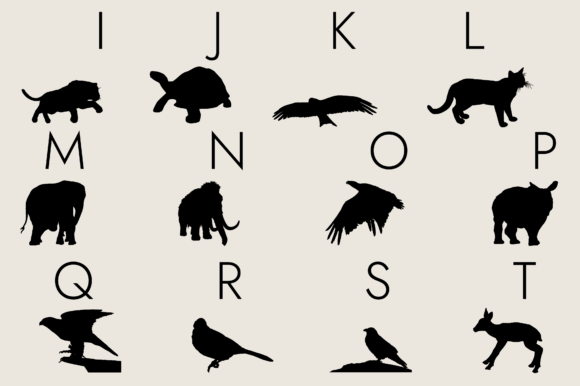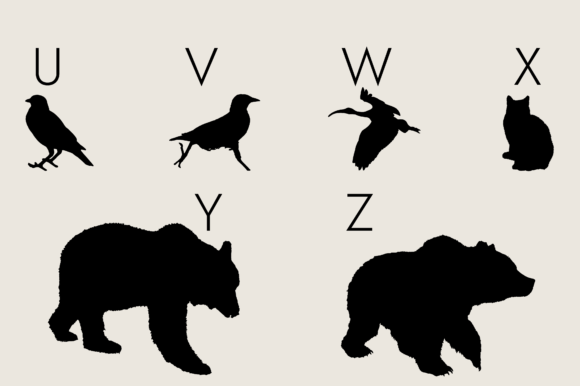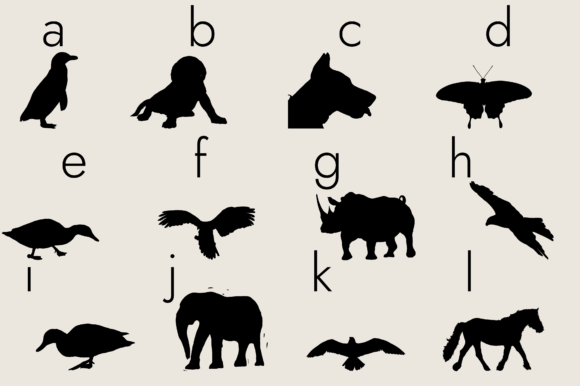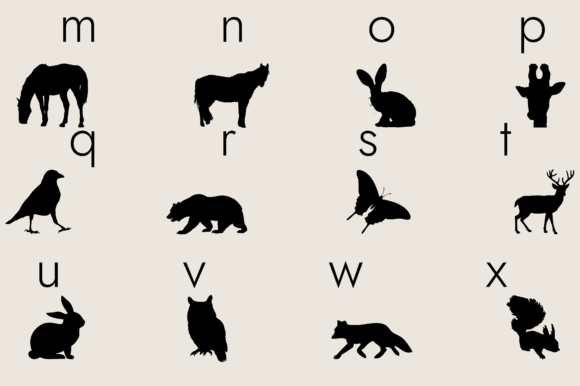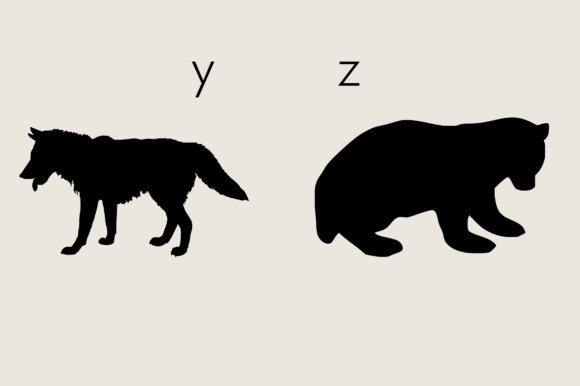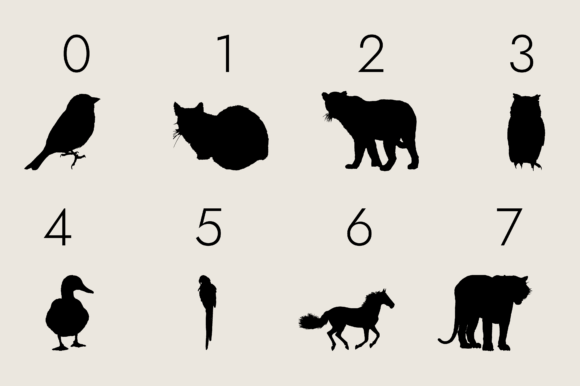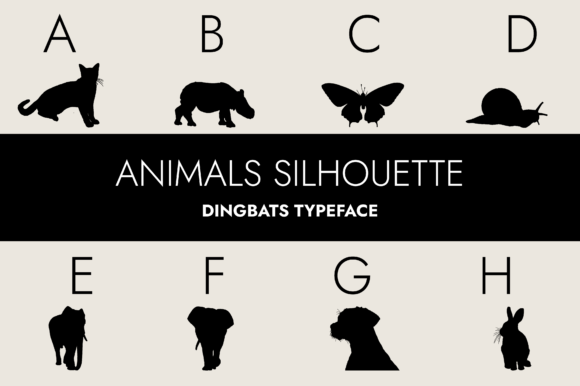
The Ultimate Design Companion: Animals Silhouette Font
I’ll never forget the time I was working on a project for a client who needed a custom illustration of various animals for a children’s book. I was struggling to find the right font to complement the artwork, and my design was starting to look dull. That’s when I stumbled upon the Animals Silhouette font, and it completely transformed my design. In this article, I’ll share my experience with this amazing dingbats font and provide a comprehensive guide on how to use it.
So, what makes Animals Silhouette font so special? 🤔
• ✨ Unique and versatile: This font offers a wide range of animal silhouettes that can be used for various design projects, from crafts to digital designs.
• 💡 Inspires creativity: The Animals Silhouette font sparks imagination and helps you create stunning designs that stand out.
While I love this font, there are a few minor quirks to be aware of:
• ⚠️ Limited text formatting: As a dingbats font, Animals Silhouette is designed primarily for use with symbols and glyphs, so text formatting options are limited.
• 🤔 Some characters may not work well at small sizes: Be sure to test the font at different sizes to ensure the characters look clear and crisp.
Animals Silhouette font comes with a range of OpenType features and glyphs that can enhance your designs. Here are some tips for using these features:
• Stylistic alternates: Switch between different versions of a character to add visual interest.
• Ligatures: Combine characters to create unique and interesting effects.
• Glyphs: Browse the character set to discover new and creative ways to use the font.
The Animals Silhouette font was created by a talented designer who was inspired by the beauty of the natural world. With a passion for wildlife and conservation, the designer aimed to create a font that would allow others to share their love of animals through their designs.
What type of designs is Animals Silhouette best suited for? Animals Silhouette is perfect for crafts, digital designs, presentations, greeting cards, and any other project that requires a touch of wildlife charm.
Is Animals Silhouette available in different styles or variations? Currently, Animals Silhouette is available as a single font, but the designer may release variations or expansions in the future.
Animals Silhouette font is a versatile and creative tool that’s perfect for designers, crafters, and hobbyists. With its wide range of animal silhouettes and ease of use, it’s sure to become a favorite in your design arsenal.